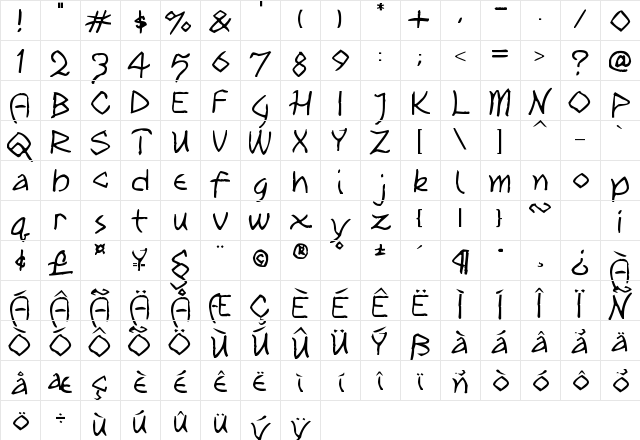
N.A.H. Tribal is a composed and adaptable typeface that performs quietly and consistently across a wide range of design contexts.
Pro Tip: Use N.A.H. Tribal in both headline and body roles to test its range before committing to a single application.